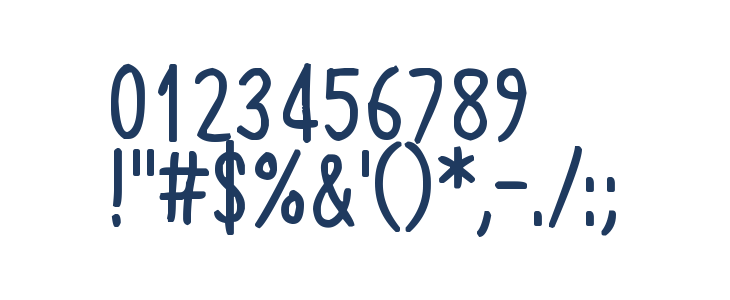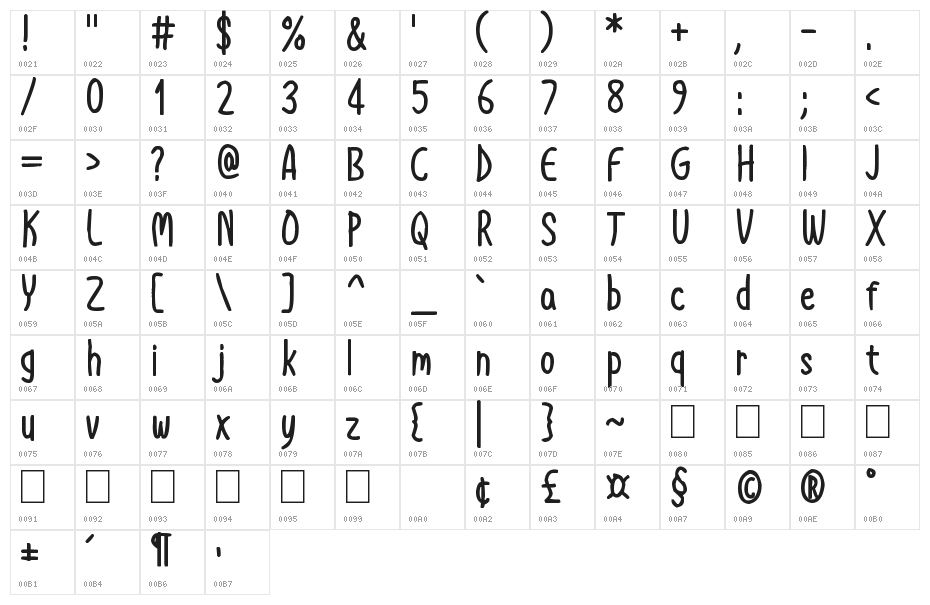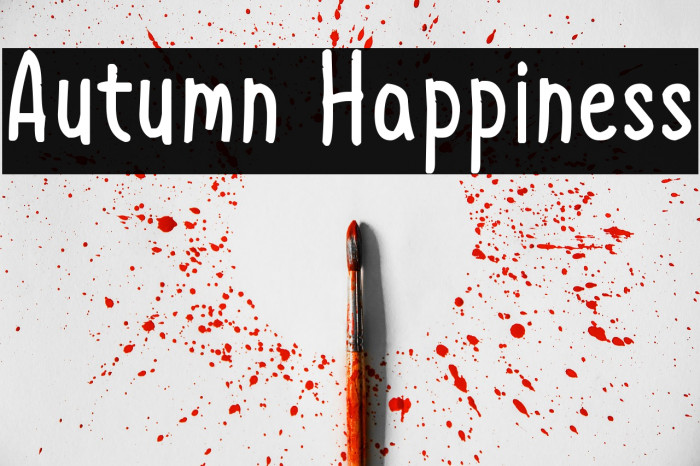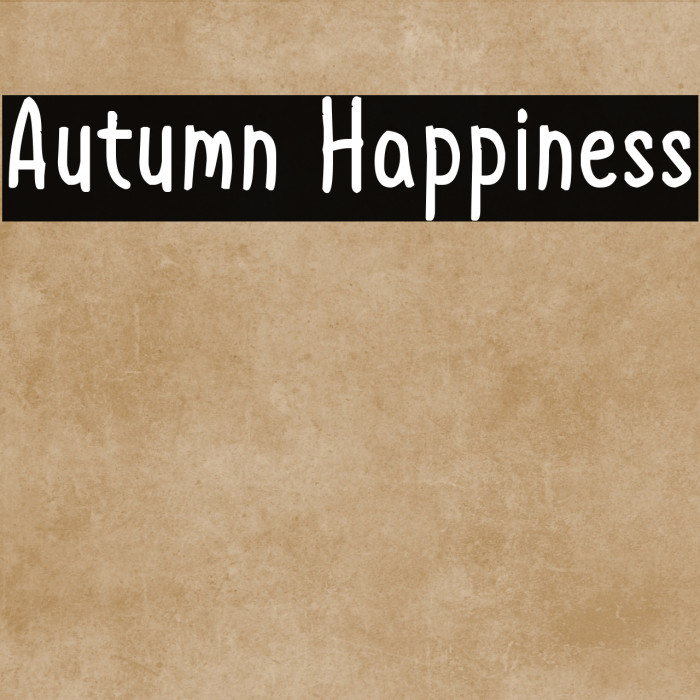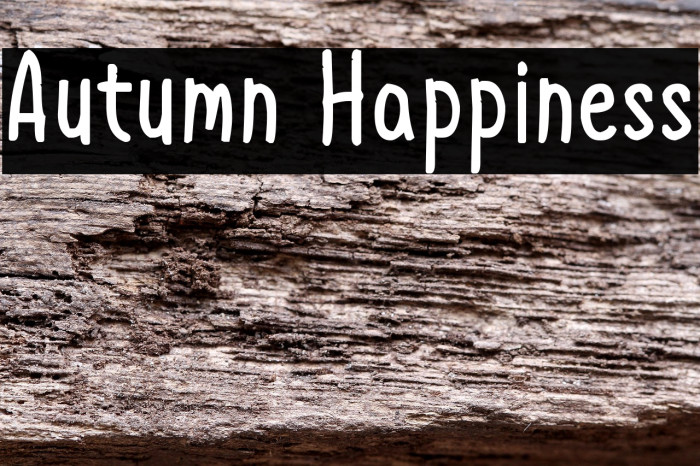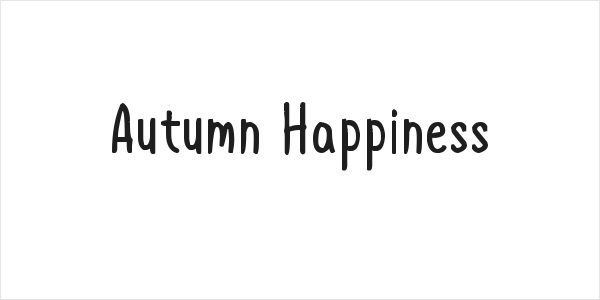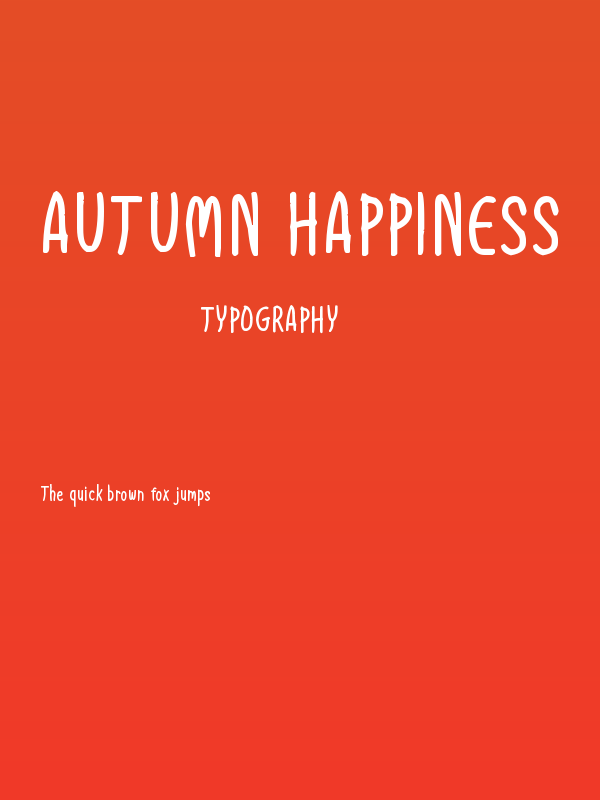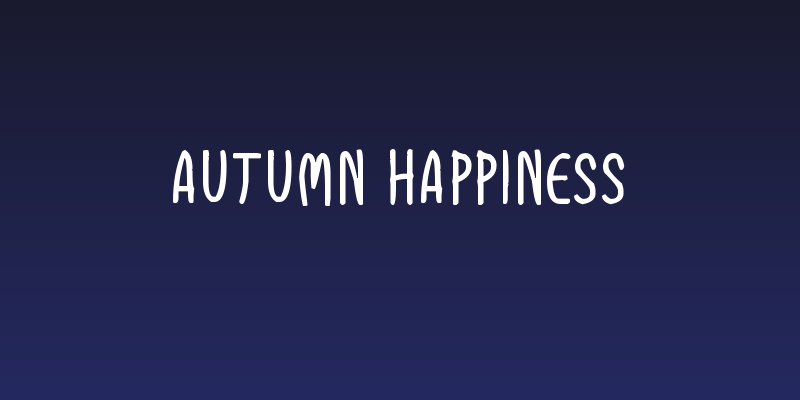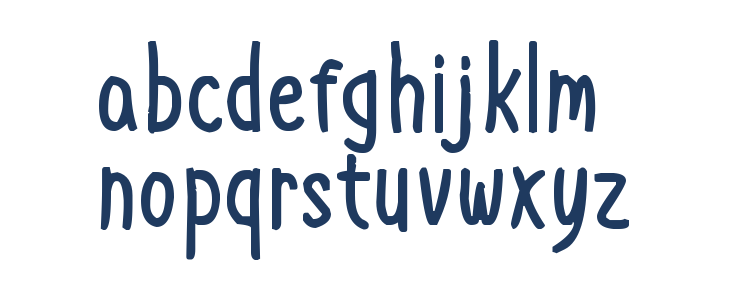
Autumn Happiness Font
Autumn Happiness Description
This font exudes a playful and casual vibe, characterized by its hand-drawn appearance. The letters are slightly irregular, adding a personal touch that feels both approachable and friendly. The strokes are consistent in thickness, providing a uniform look while maintaining a sense of spontaneity. The uppercase and lowercase letters are well-balanced, with a slight slant that enhances the informal style. Numbers and special characters are included, matching the overall aesthetic. This font is perfect for projects that require a touch of whimsy and creativity.